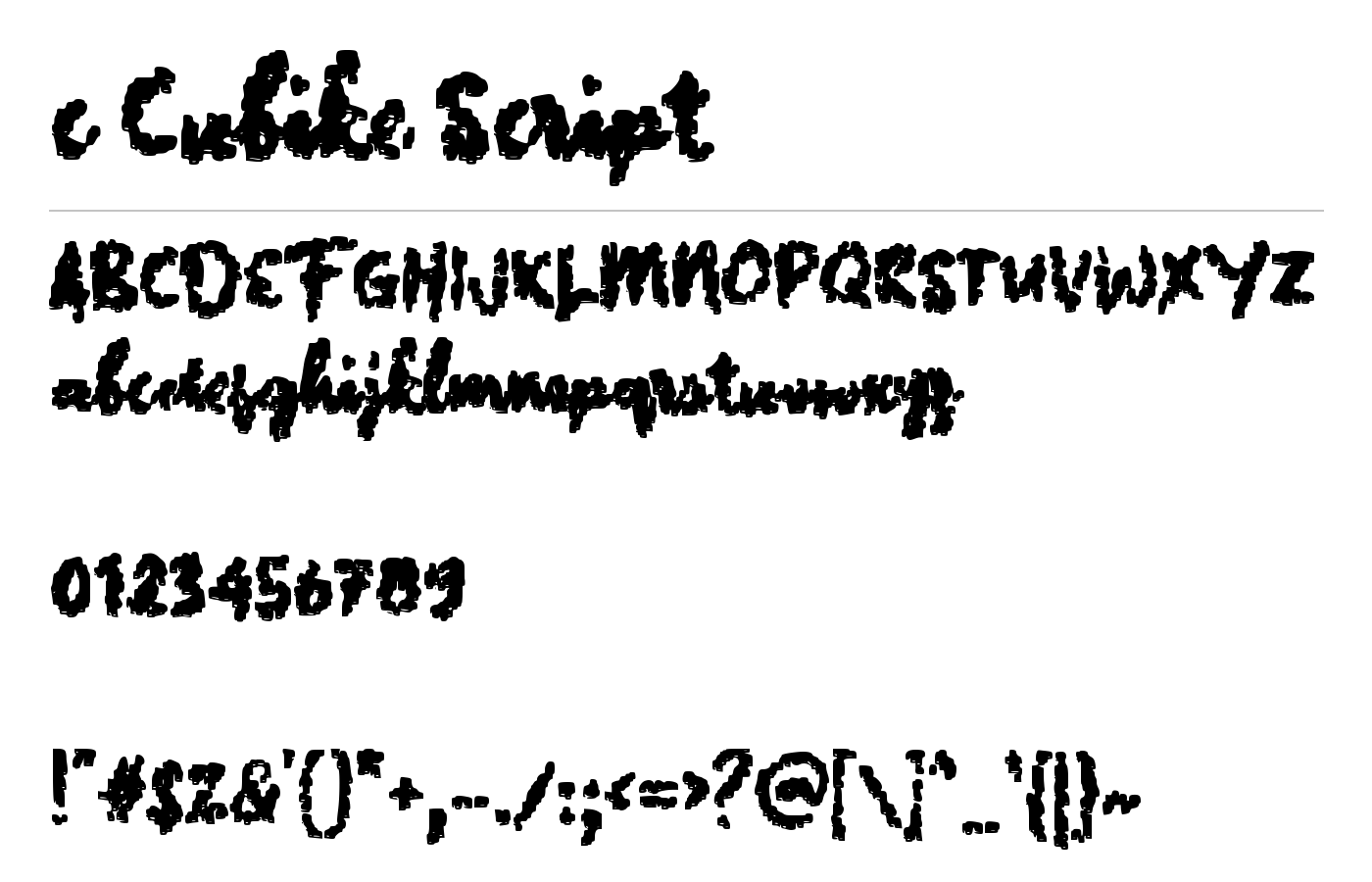
c Cubike Script is a bold, textured script font that combines a casual, hand-drawn feel with a rough, almost distressed texture. Its thick strokes and organic, uneven edges give it a playful and expressive personality, making it ideal for creative and informal designs that want to stand out. This font works well in eye-catching logos, posters, and artistic branding where a unique and dynamic handwritten look is desired.
c Cubike Script Font
About c Cubike Script Font